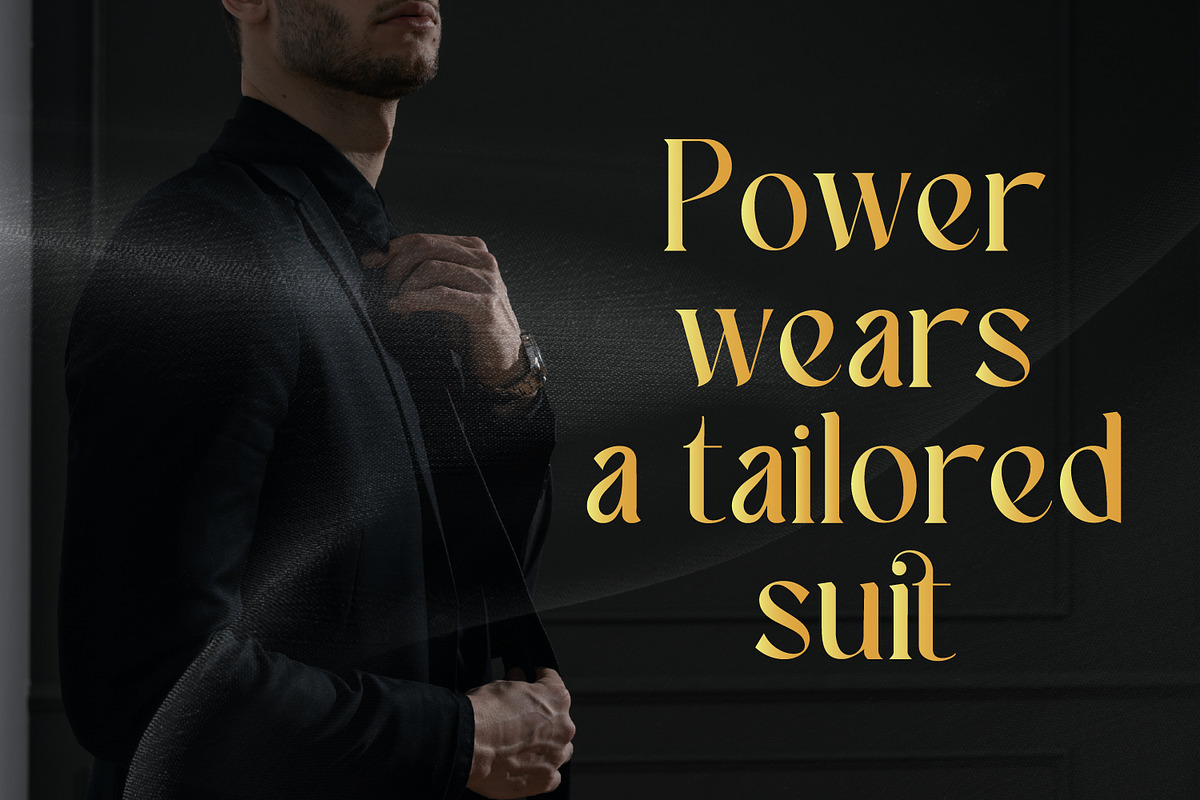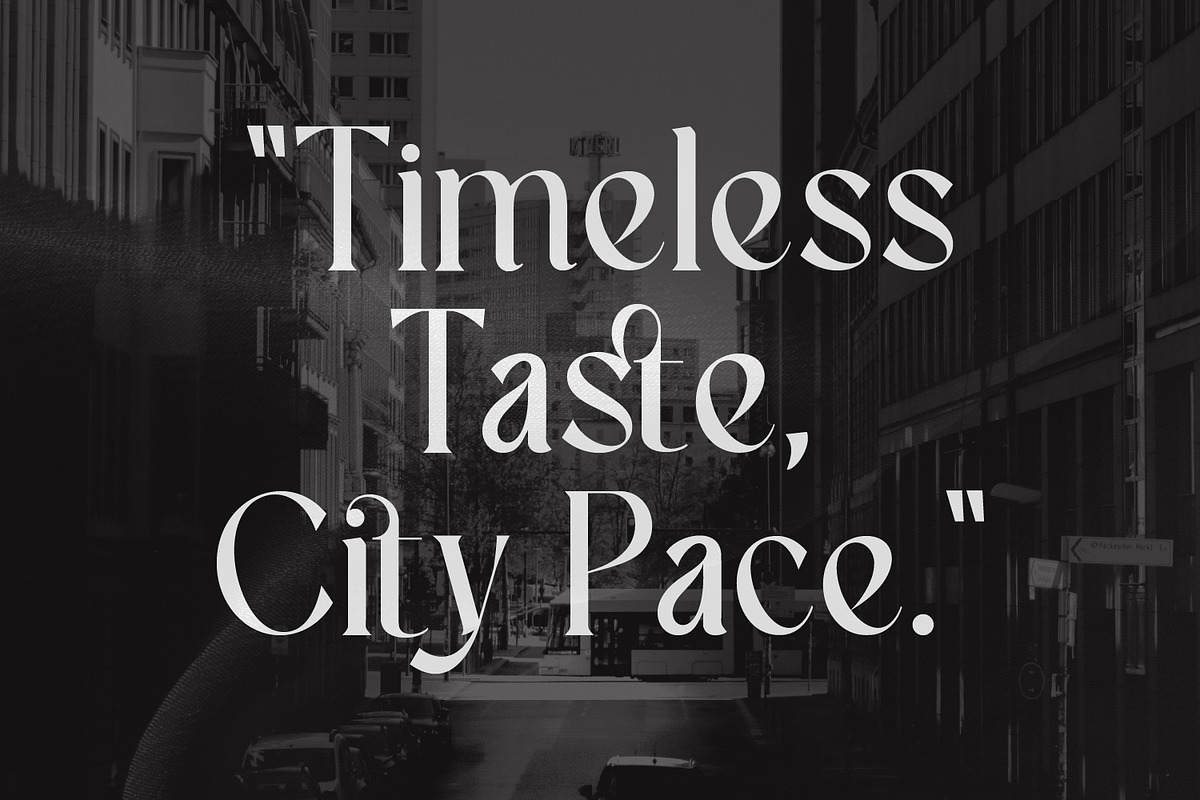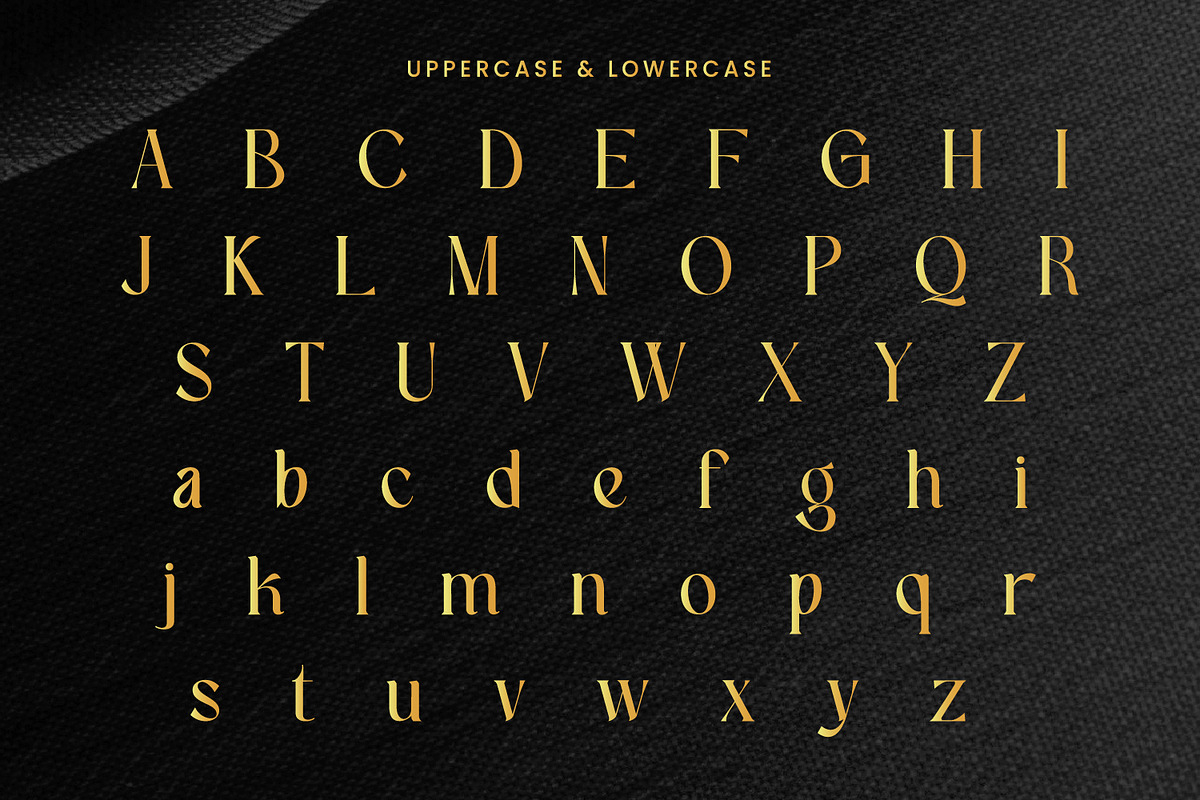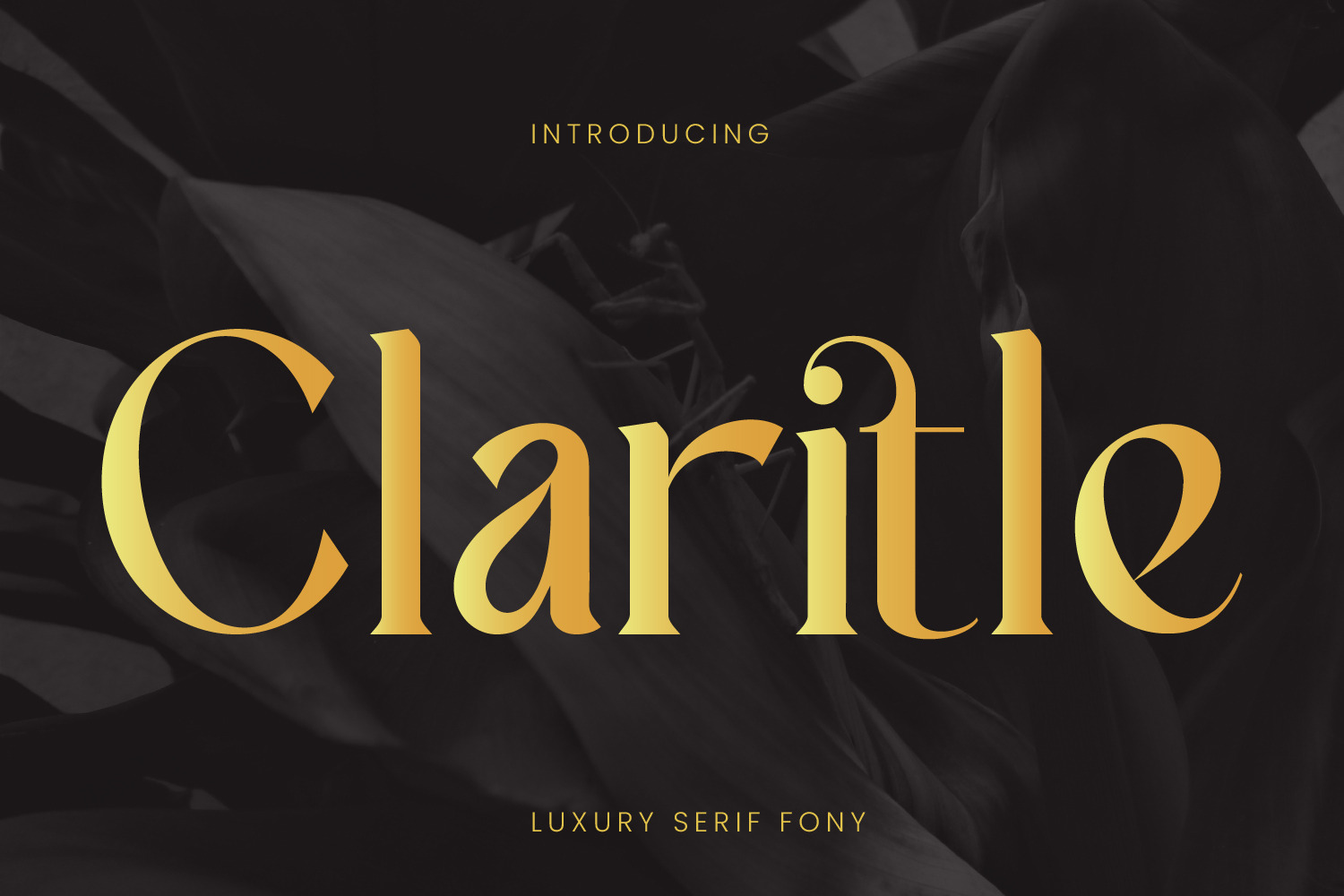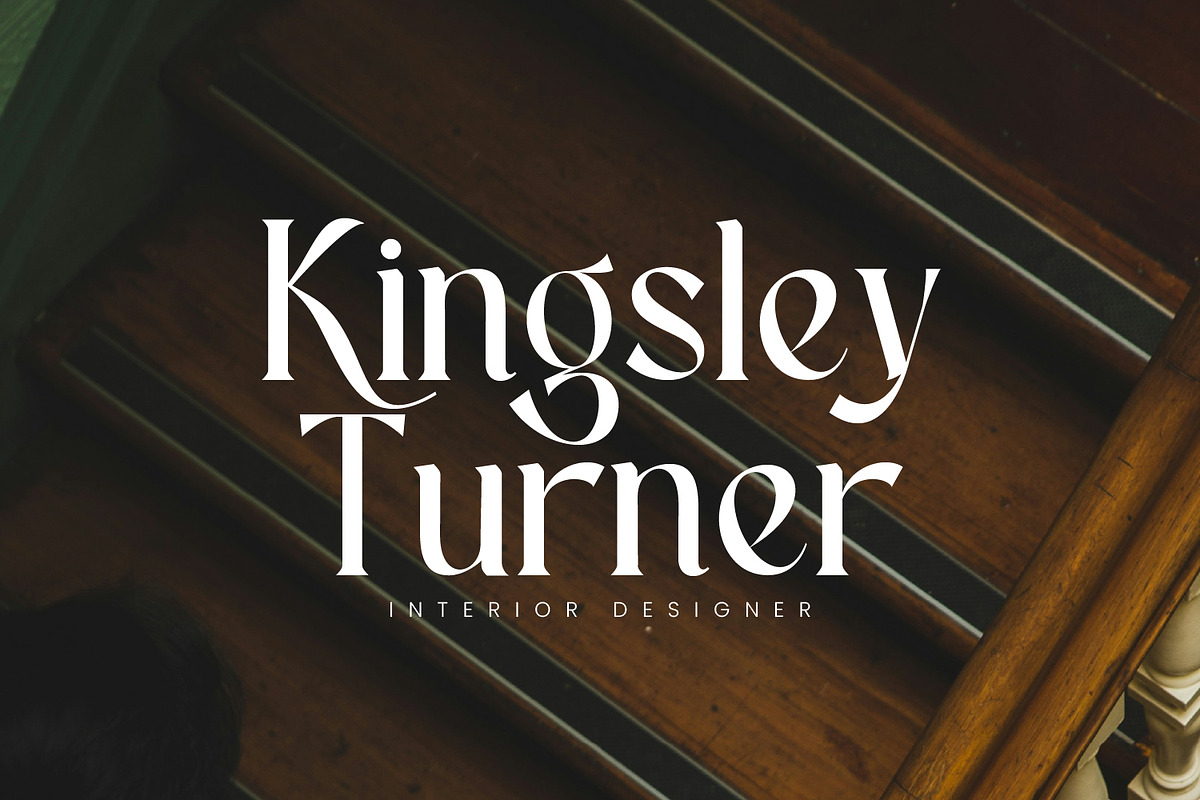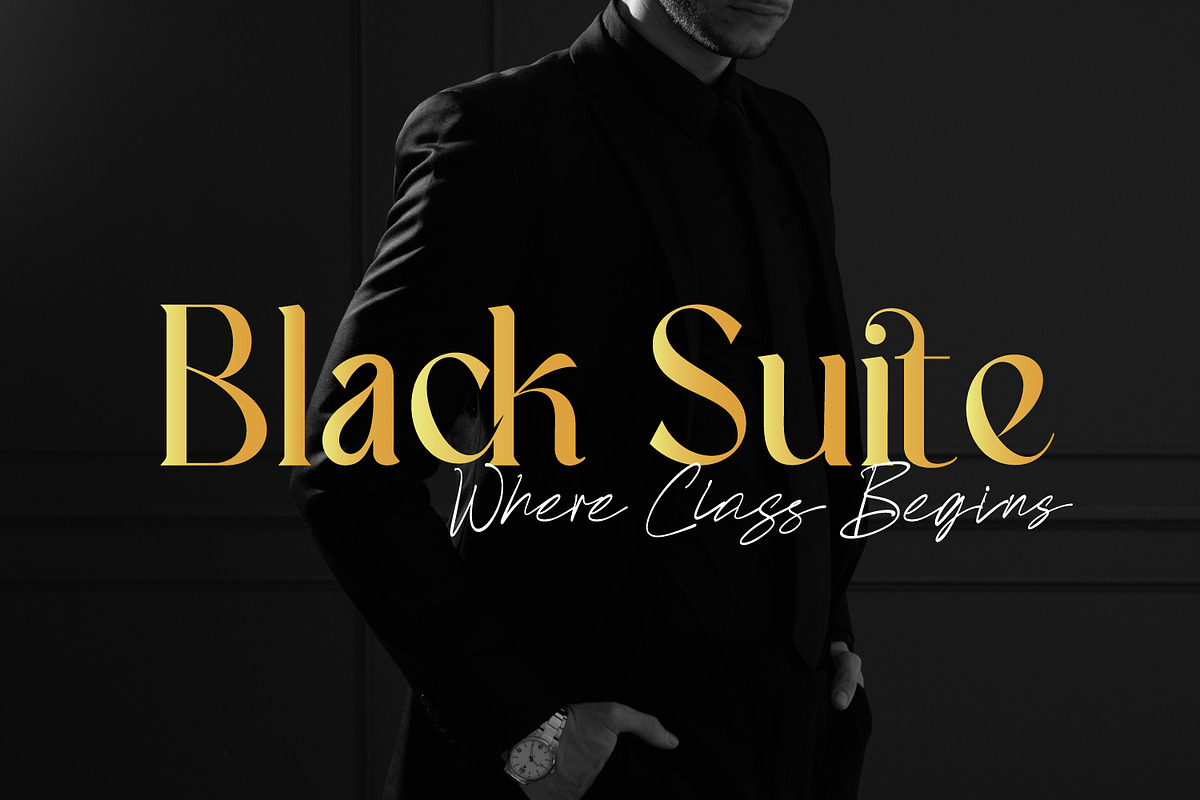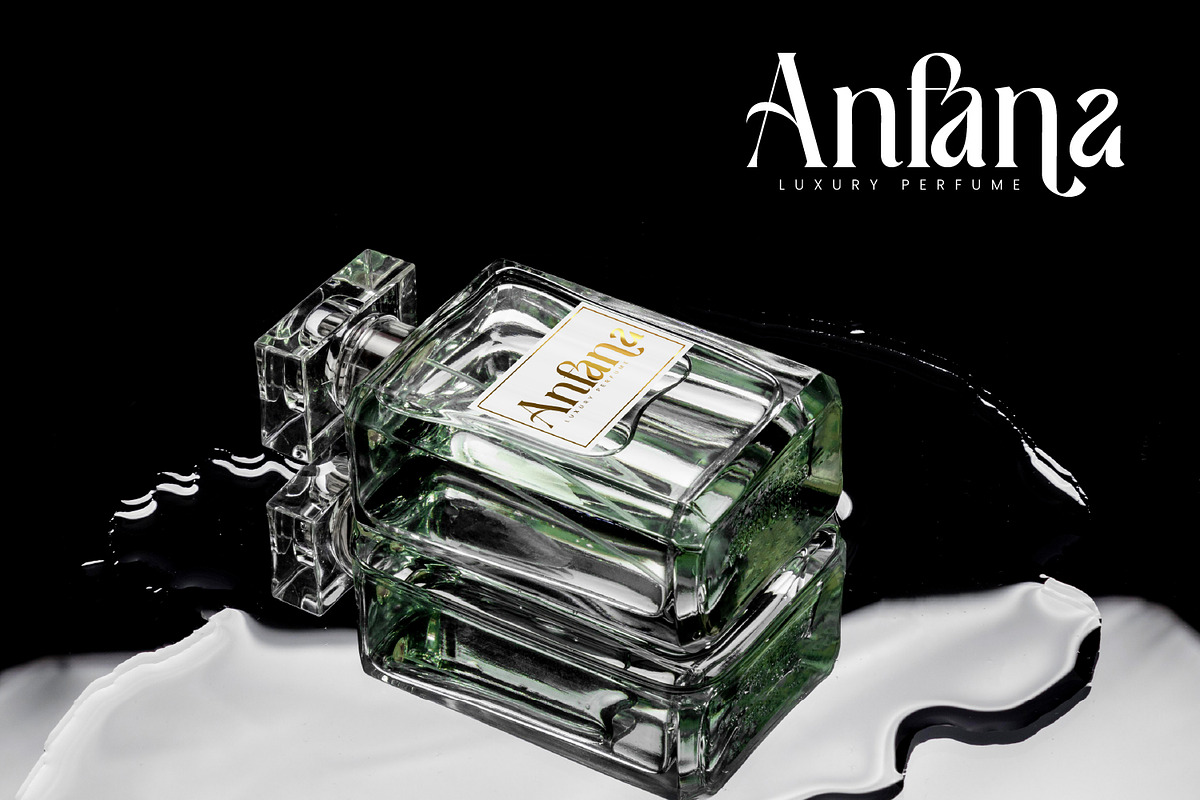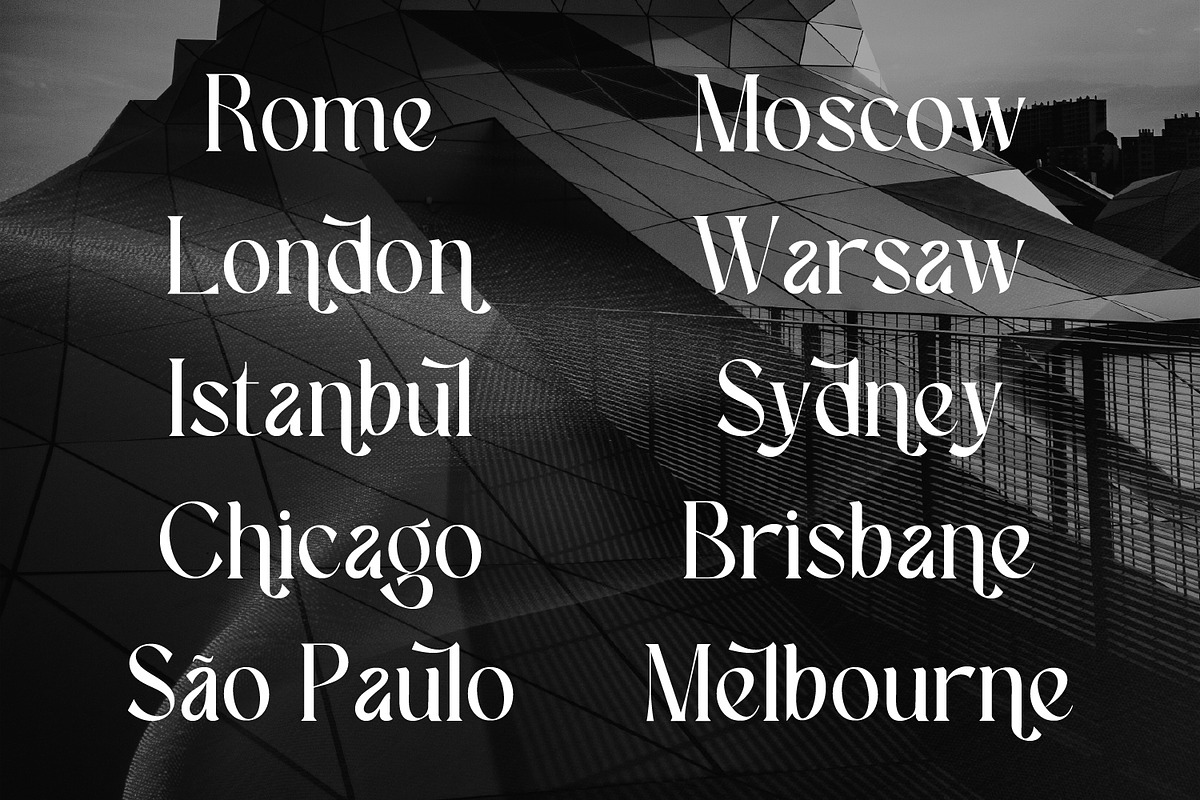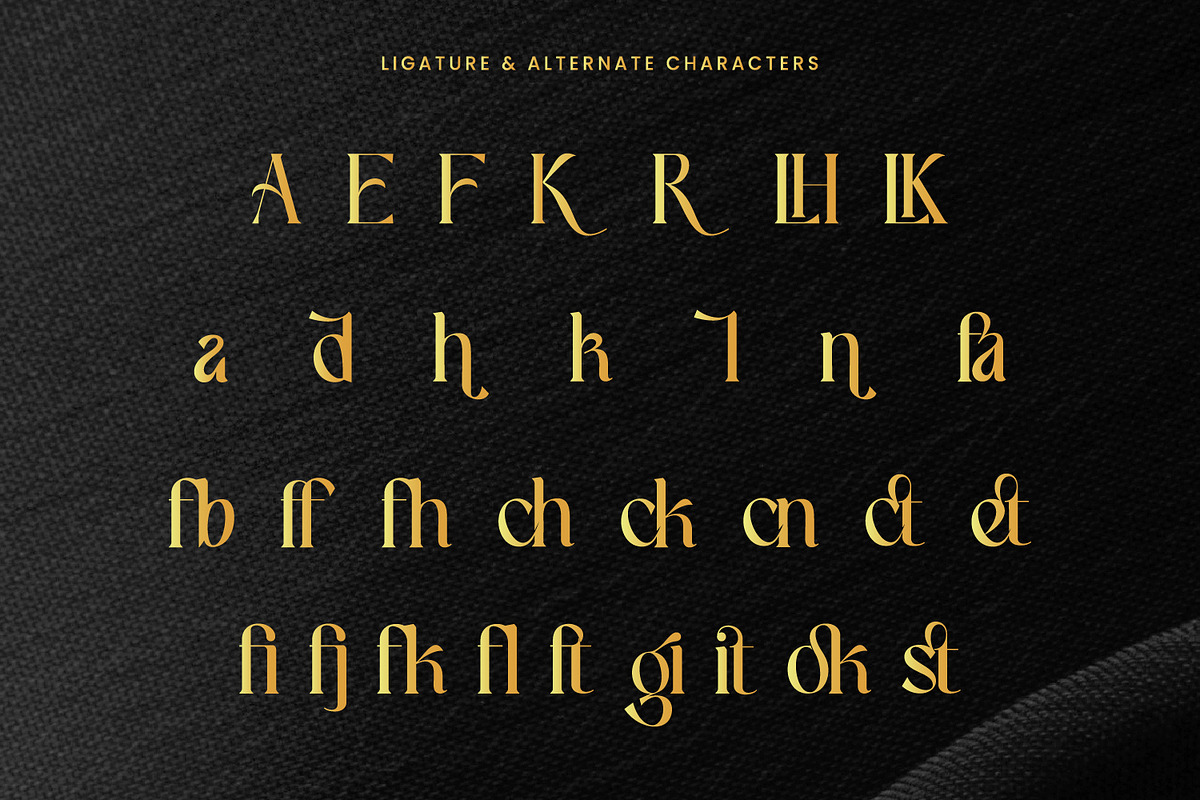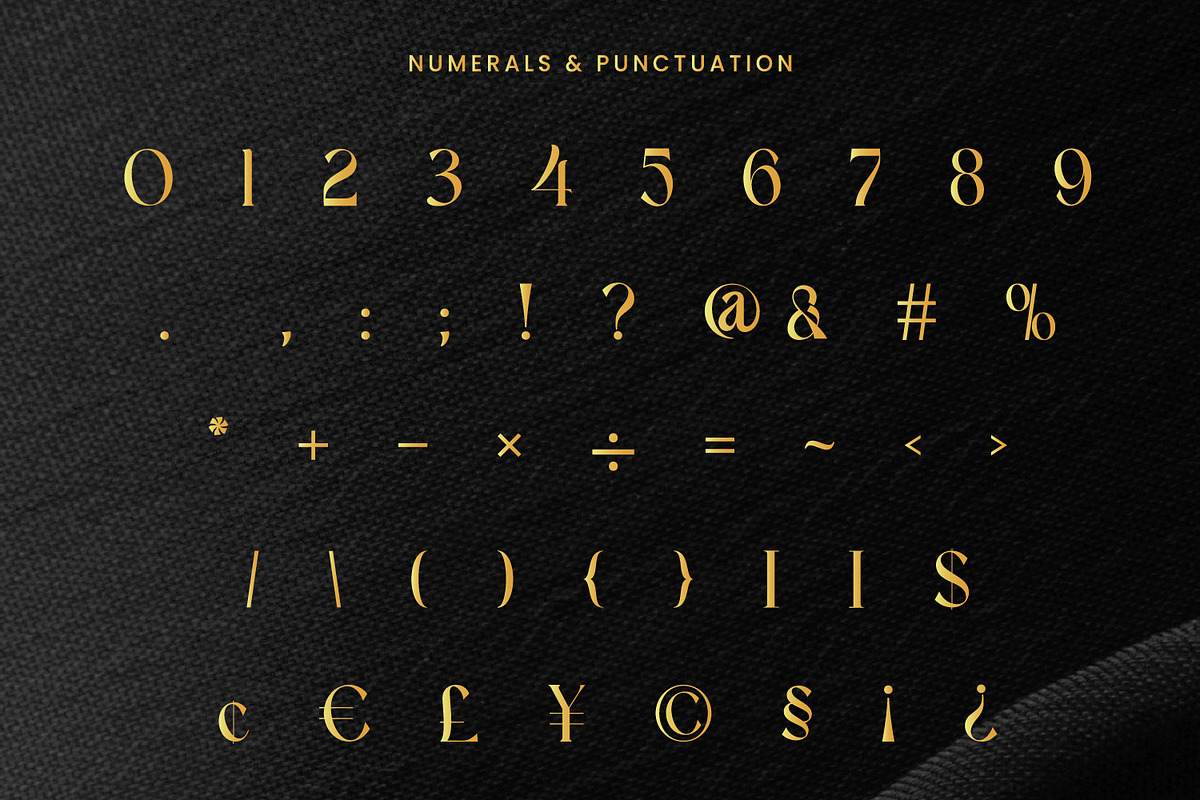
Claritle Luxury Font
Claritle is a luxury serif font that combines graceful curves with sharp details, creating a modern yet timeless elegance. Perfect for premium branding, editorials, fashion projects, and sophisticated logos, Clarite delivers a refined and stylish visual identity.
✨ Key Features:
- Elegant serif style with a contemporary touch
- Ideal for luxury branding, magazines, and fashion design
- Creates an exclusive and professional impression
- Perfect for headlines, posters, and classy visual identities
- With its captivating design, Claritle is the perfect choice for designers seeking a luxurious, modern, and sophisticated look for their creative projects.